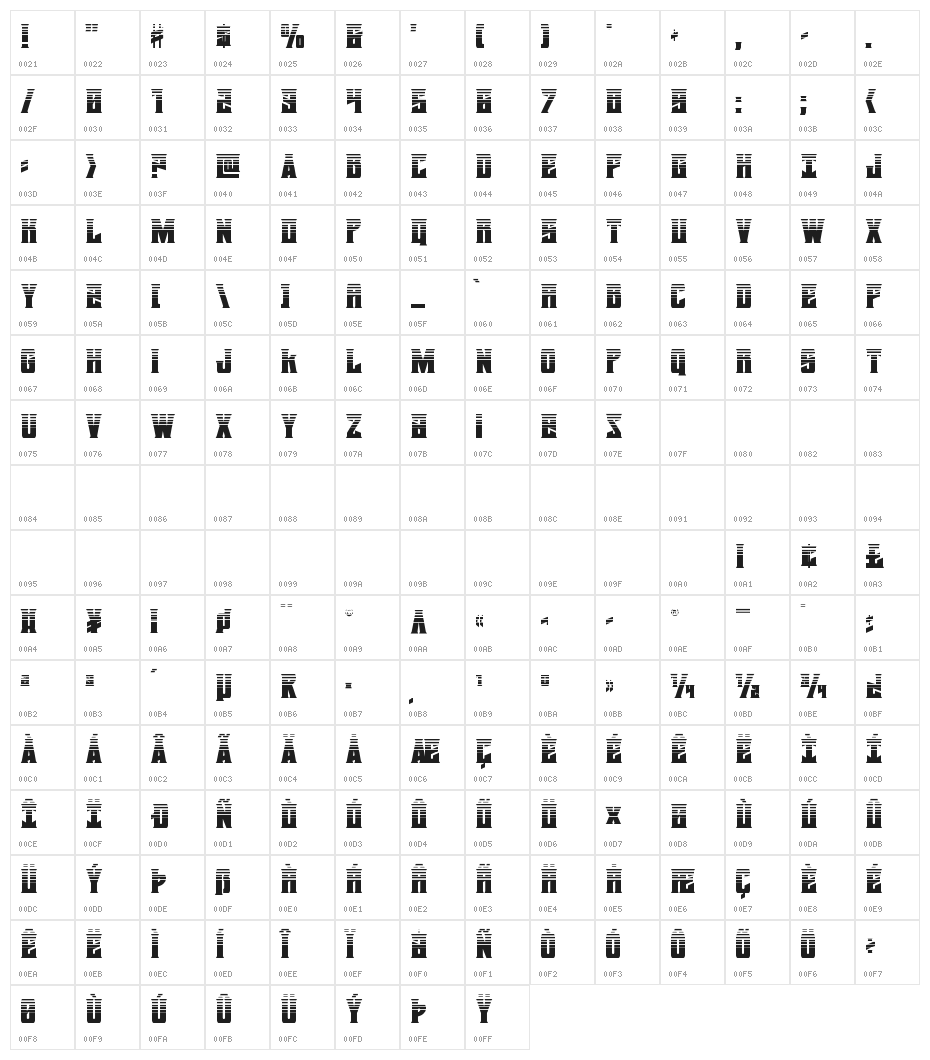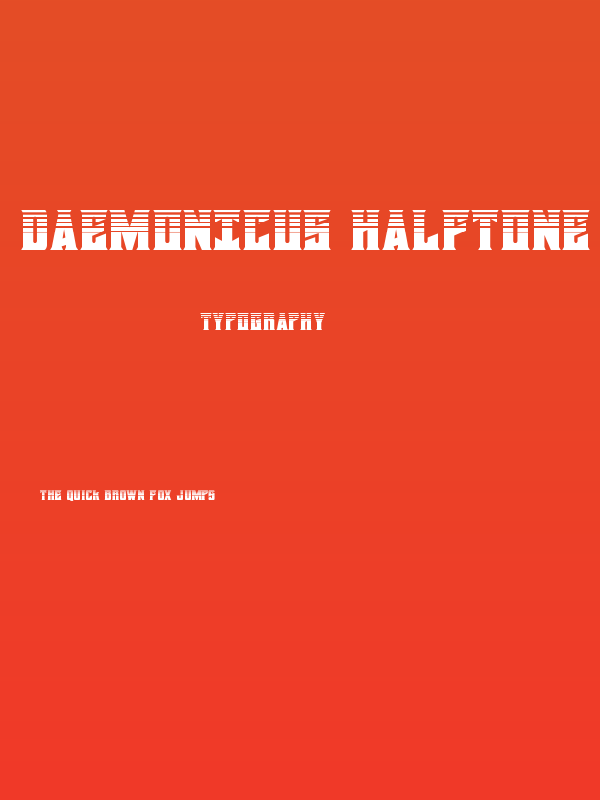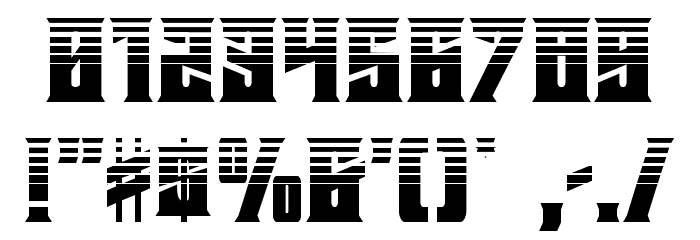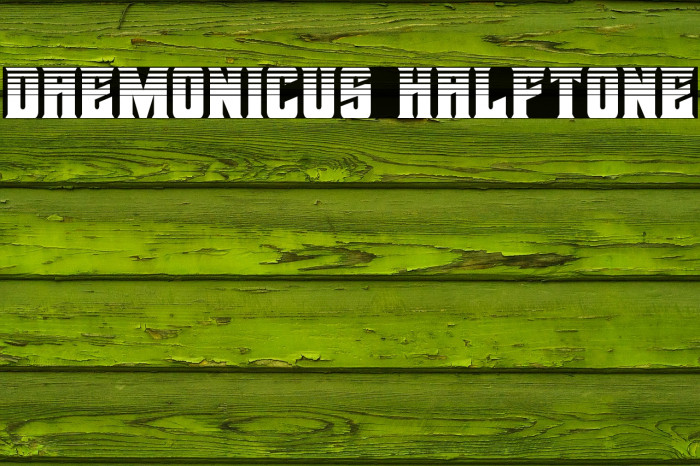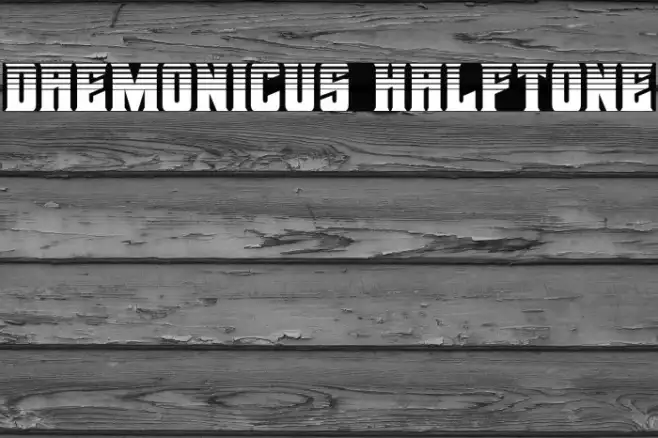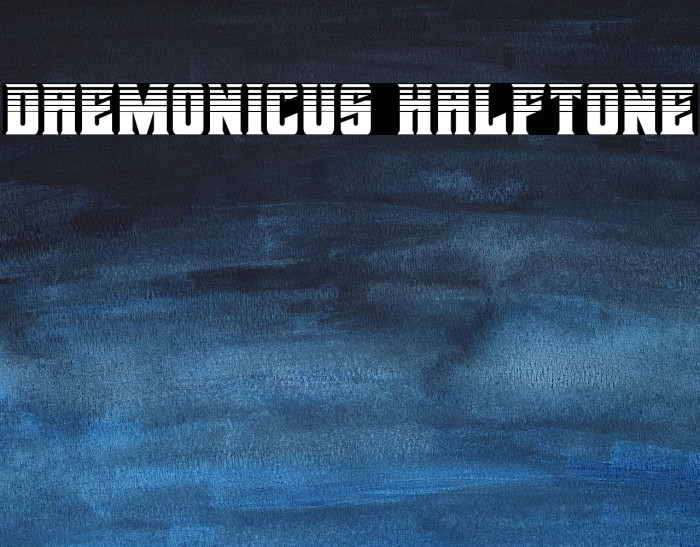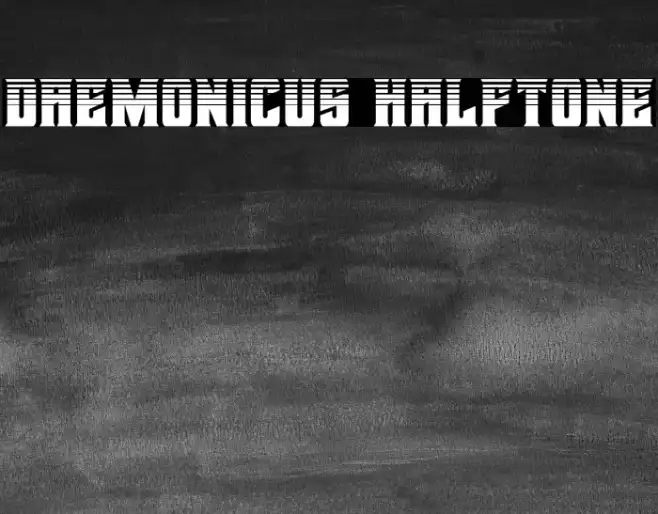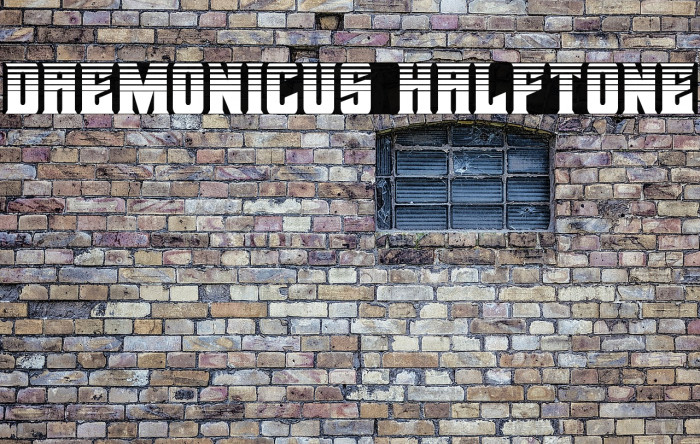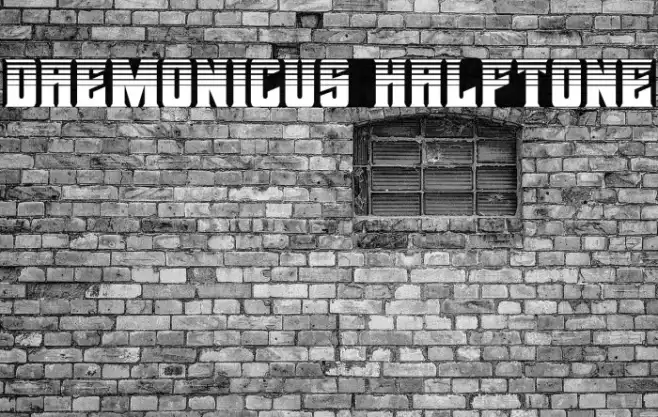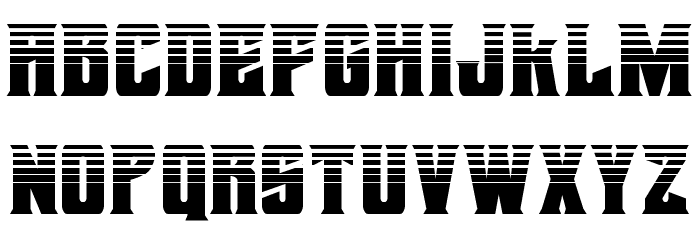
Daemonicus Halftone Font
Daemonicus Halftone Description
This font features a bold, striking design with a halftone effect that gives it a unique, textured appearance. The characters are constructed with a series of horizontal lines that create a sense of depth and dimension. The uppercase letters are particularly prominent, with sharp angles and a strong presence. The numbers and special characters maintain the same bold style, ensuring consistency across all elements. This font's distinctive look makes it ideal for projects that require a dramatic and eye-catching typeface.
| Proposed Projects | Ideal for posters, album covers, branding, and any project needing a bold, dramatic typeface. |